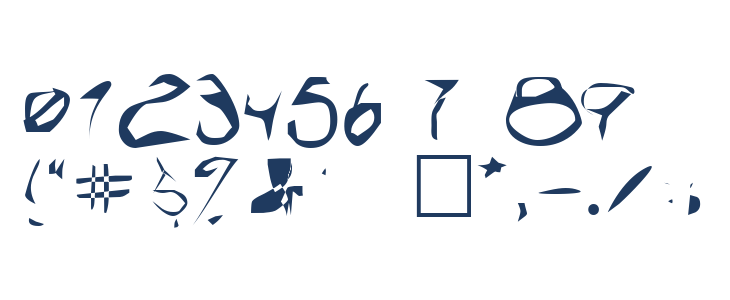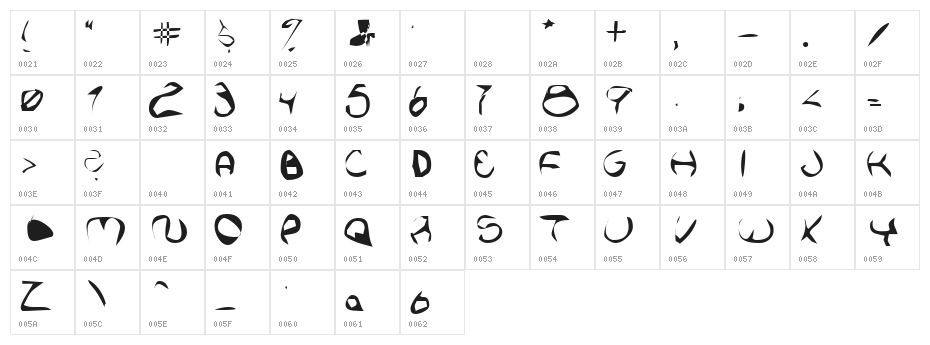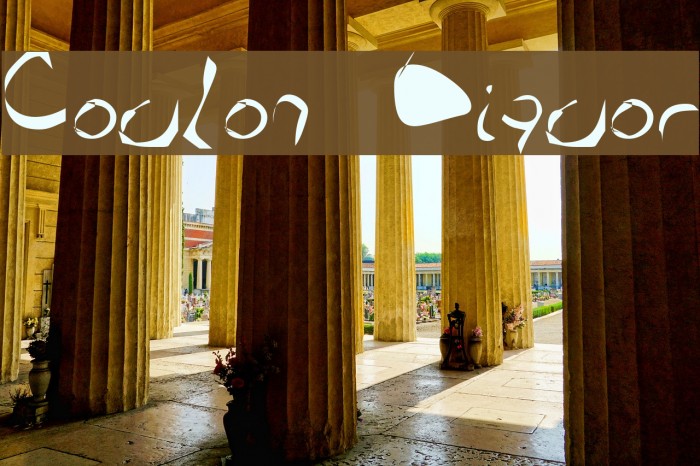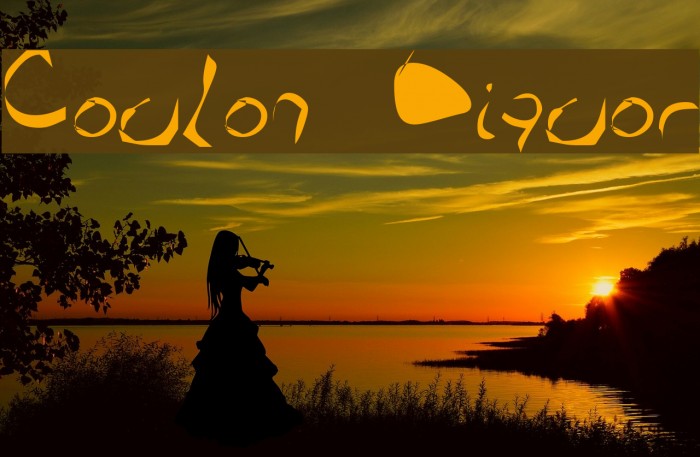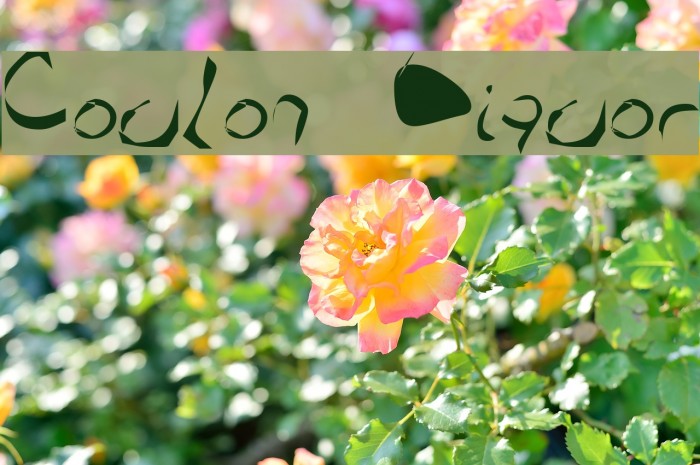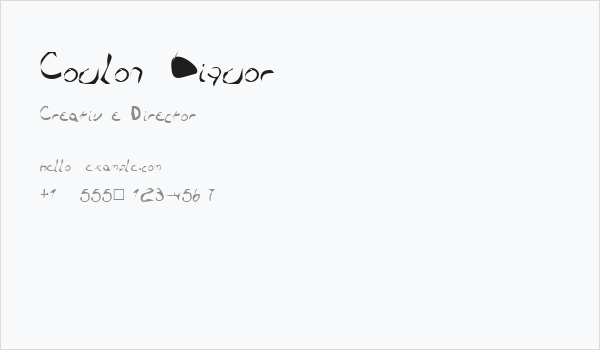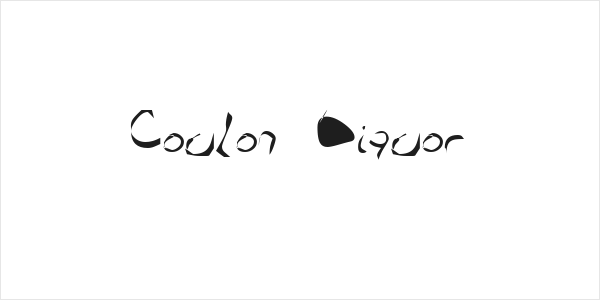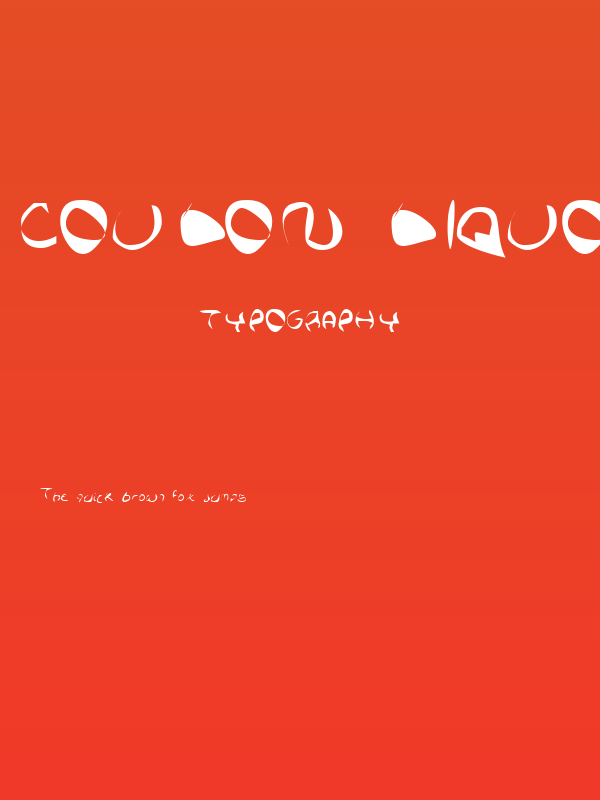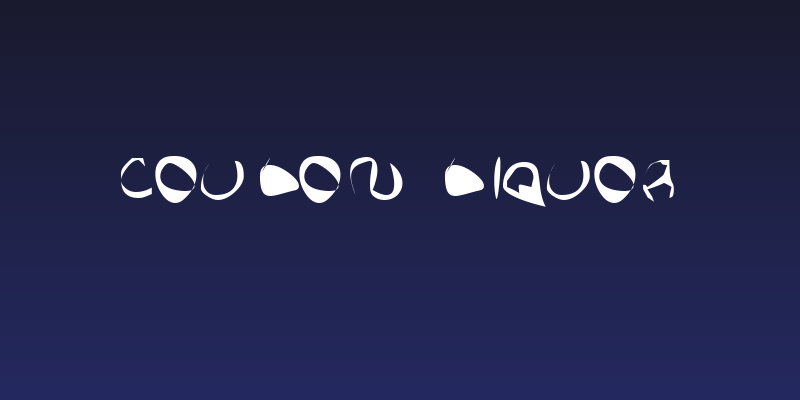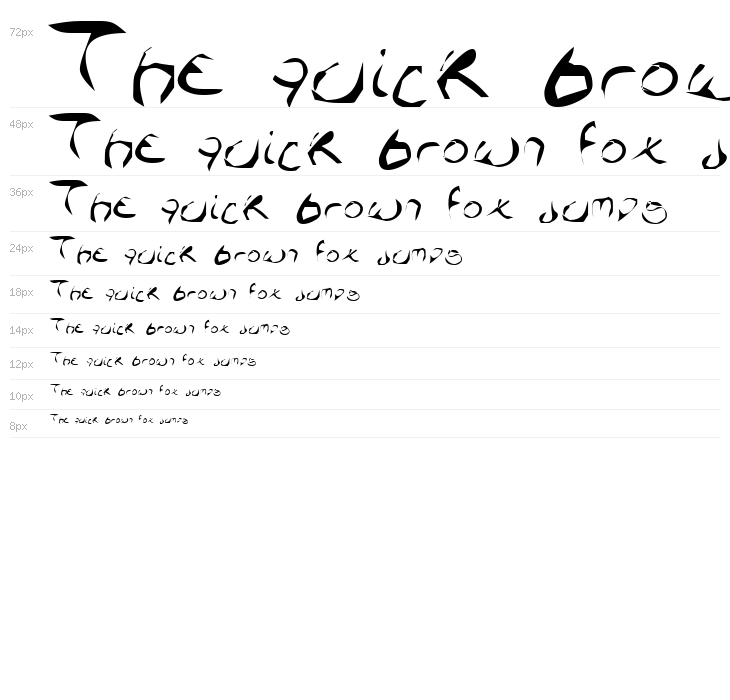
Coulon Liquor Font
Coulon Liquor Description
This font features a highly stylized and abstract design, characterized by its bold and dynamic strokes. The letters exhibit a unique blend of sharp angles and smooth curves, creating an artistic and modern appearance. The uppercase and lowercase letters maintain a consistent style, with some characters having exaggerated forms that add to the overall visual impact. Numbers and special characters follow the same design principles, ensuring a cohesive look across all elements. The font's distinctive style makes it suitable for creative and expressive projects where a strong visual statement is desired.